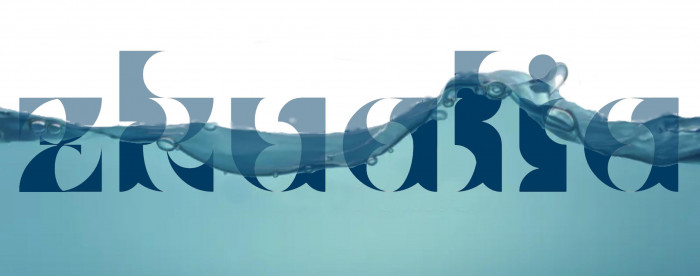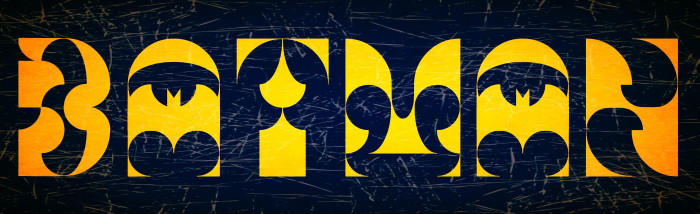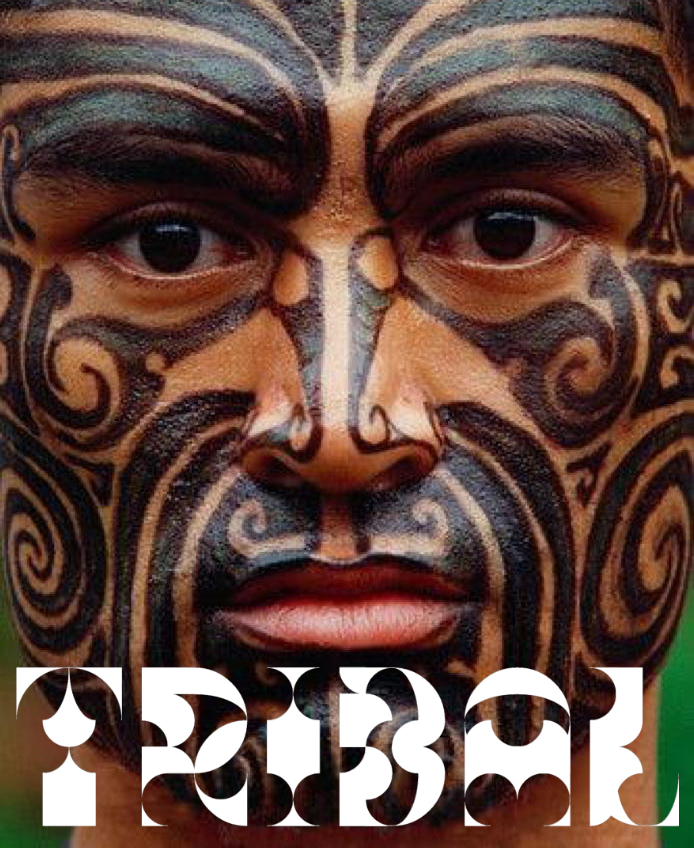
• Remembering free and groovy good old times! Curvy style font. "ff" and "tt" ligatures availables. Nothing better for the hot summer days. Enjoy. (Kern in progress).
Remembering free and groovy good old times! Curvy style font. "ff" and "tt" ligatures availables. Nothing better for the hot summer days. Enjoy. (Kern in progress).
nice!
@jirinvk: Thanks a lot, pal. Glad you like it.
Congratulations! FontStruct Staff have deemed your FontStruction worthy of special mention. “zkualia eYe/FS” is now a Top Pick.
Cool font. But I can't stop seeing the eye (your logo) and the Batman symbol in the letter A)
i see a butt in [A] ngl
@meek: Thanks a million, Boss!
@Dmitriy Sychiov: Thanks, pal. The next sample is for you.
Little abstract, but still very cool. Now cant "unsee" the bat :-)
wow
@Peter (Petruuccio) & @v9betasia & @good88cominfo: Thanks a lot for the positive feedback and glad you like it. Creating fonts with some "few used" bricks is so much fun and I was forgetting this wonderful feeling.
how did you make the small curves
wow its so pretty!